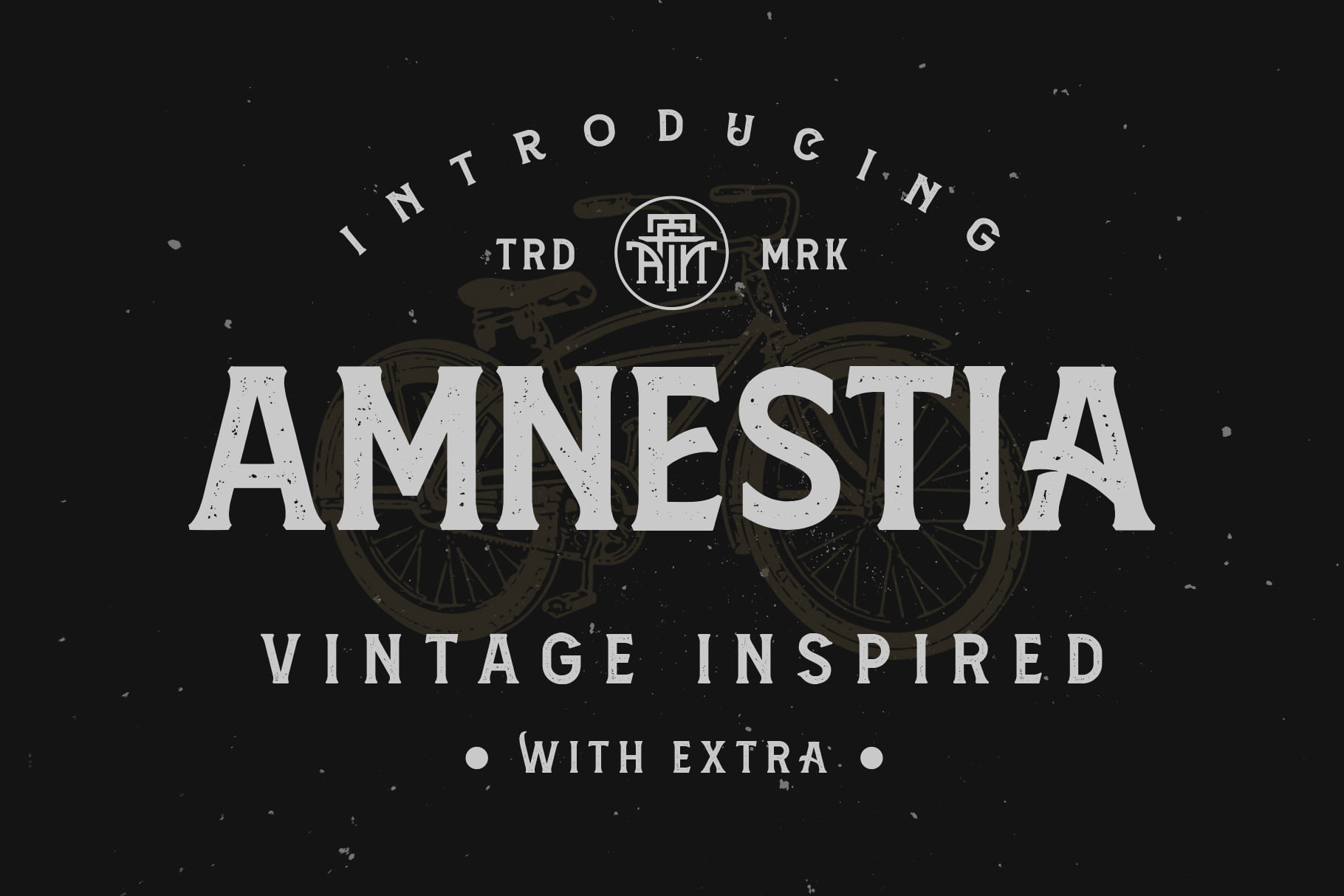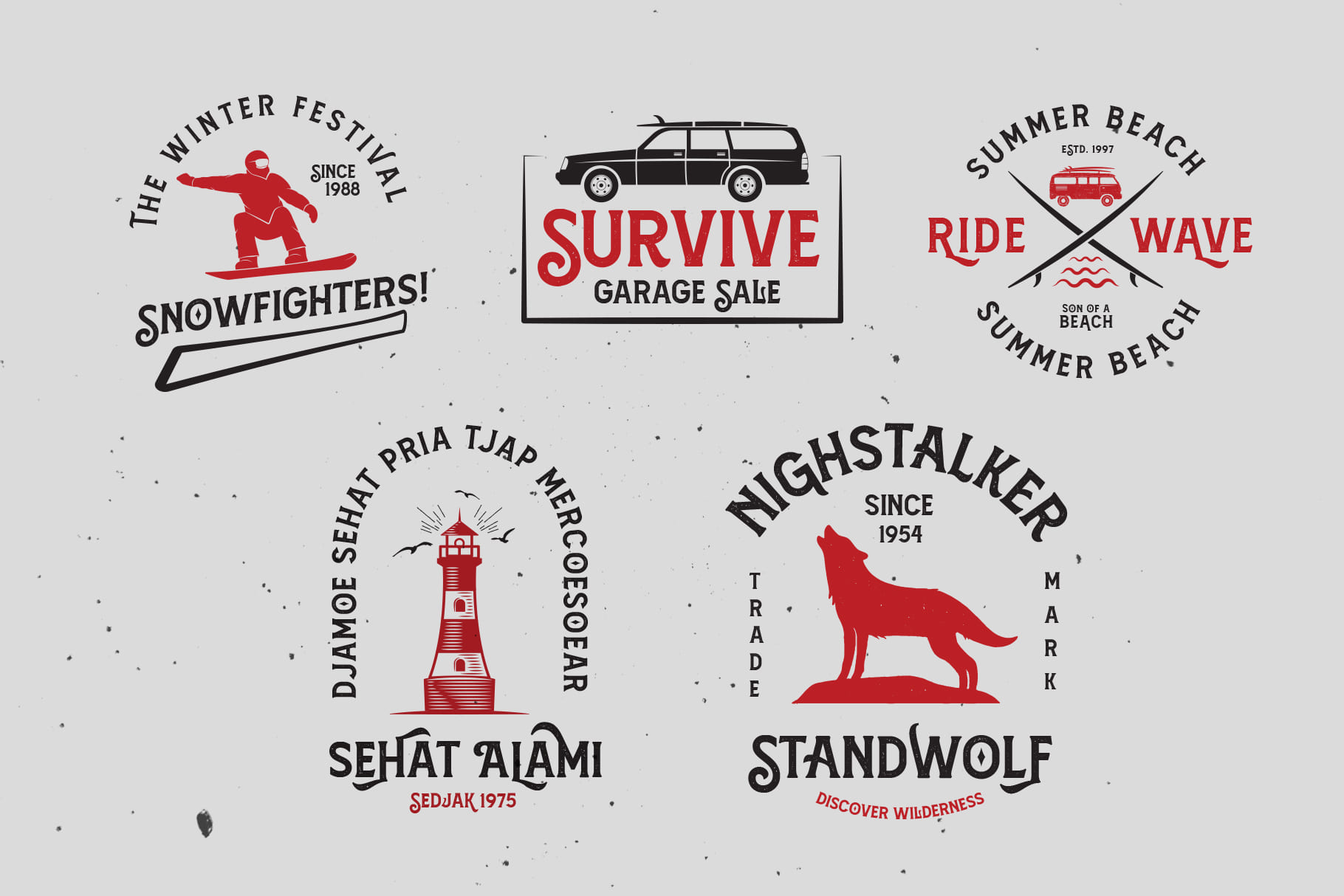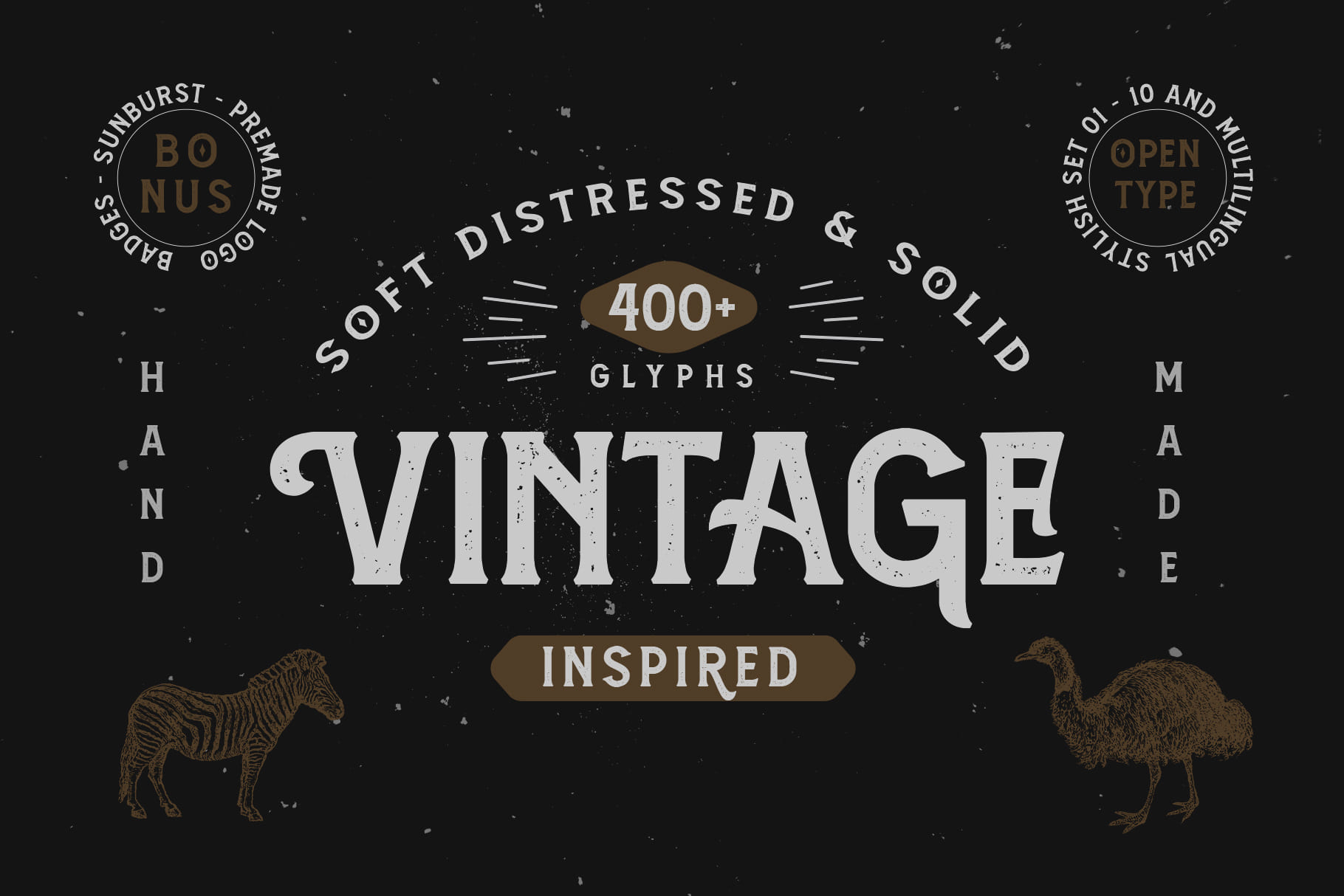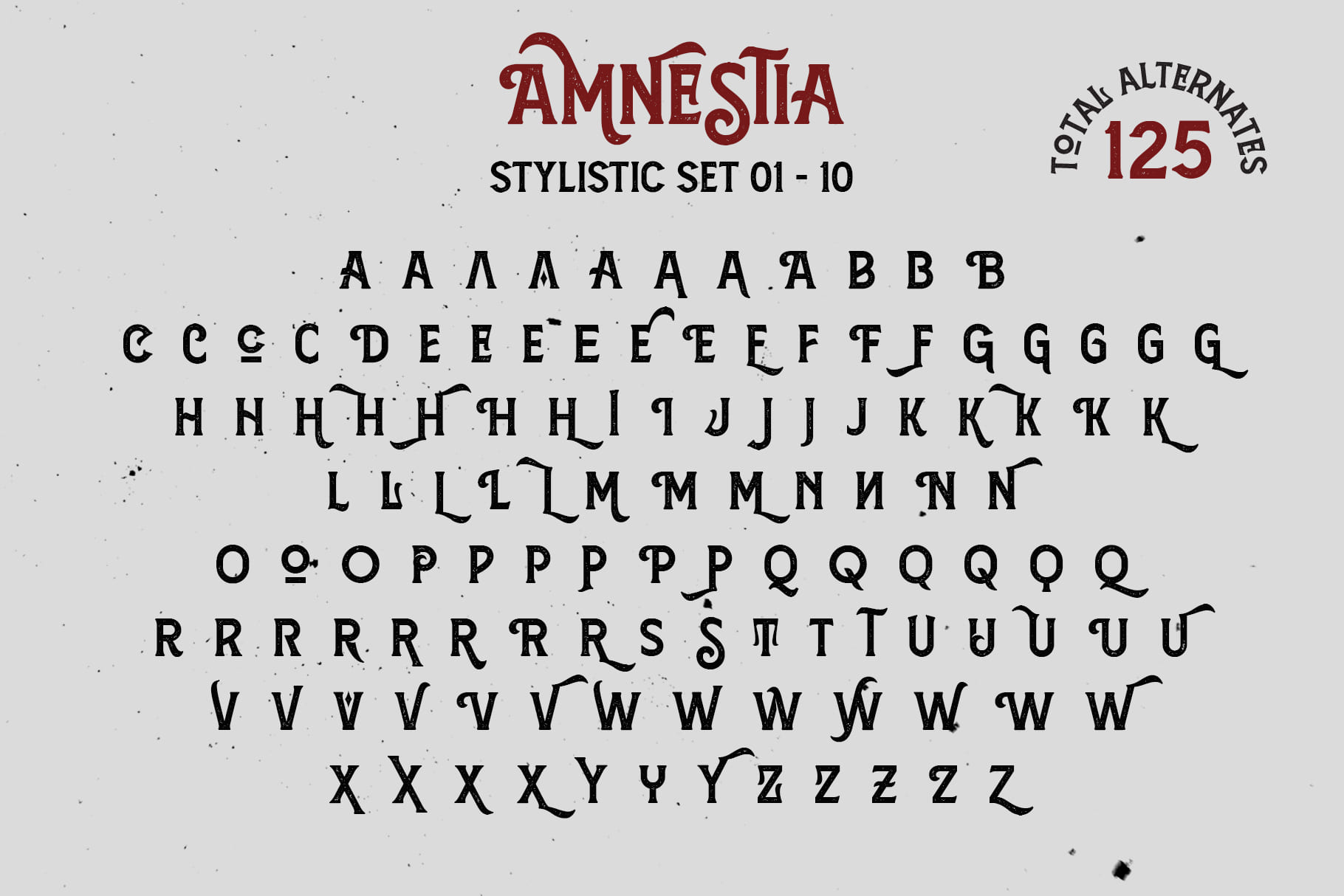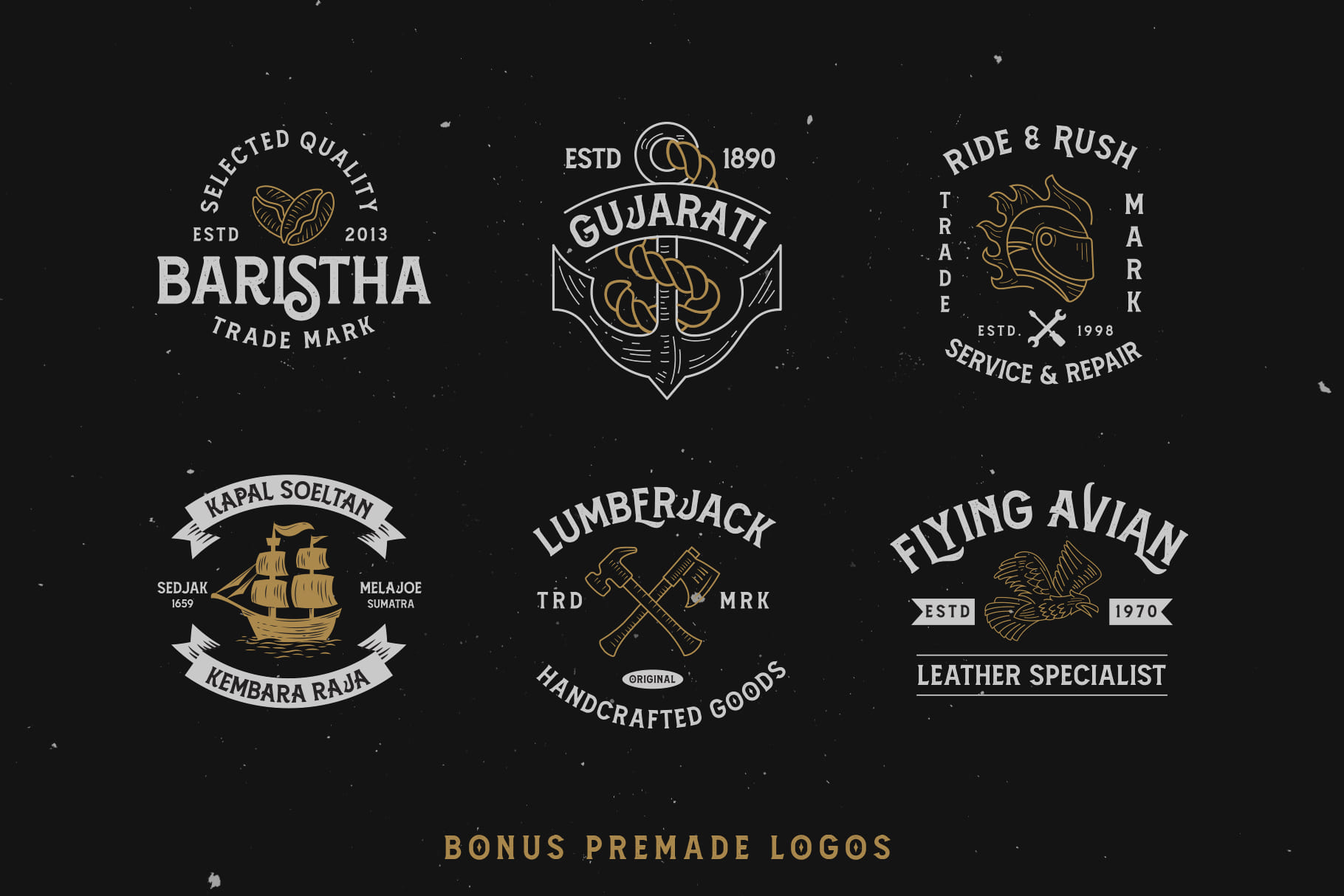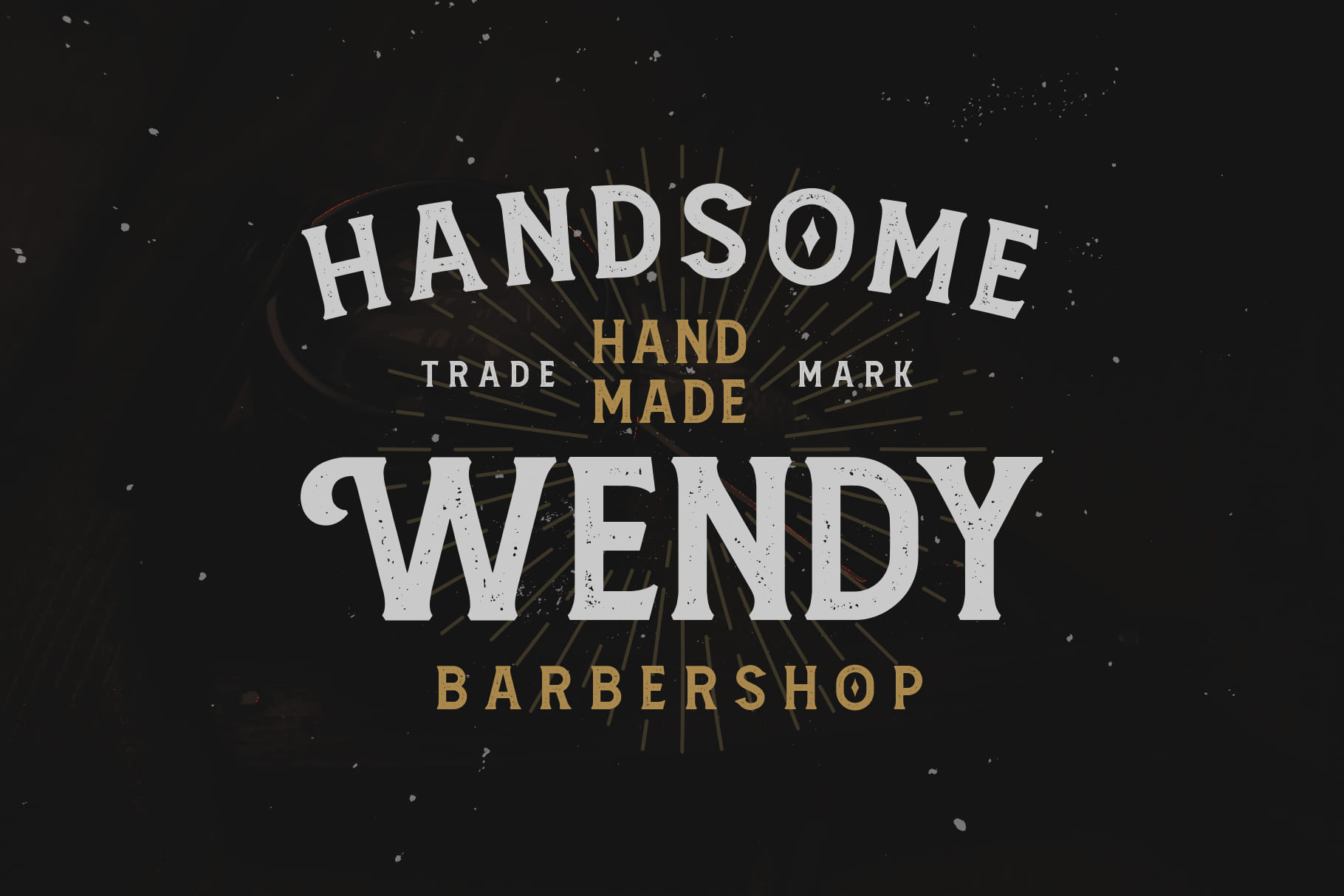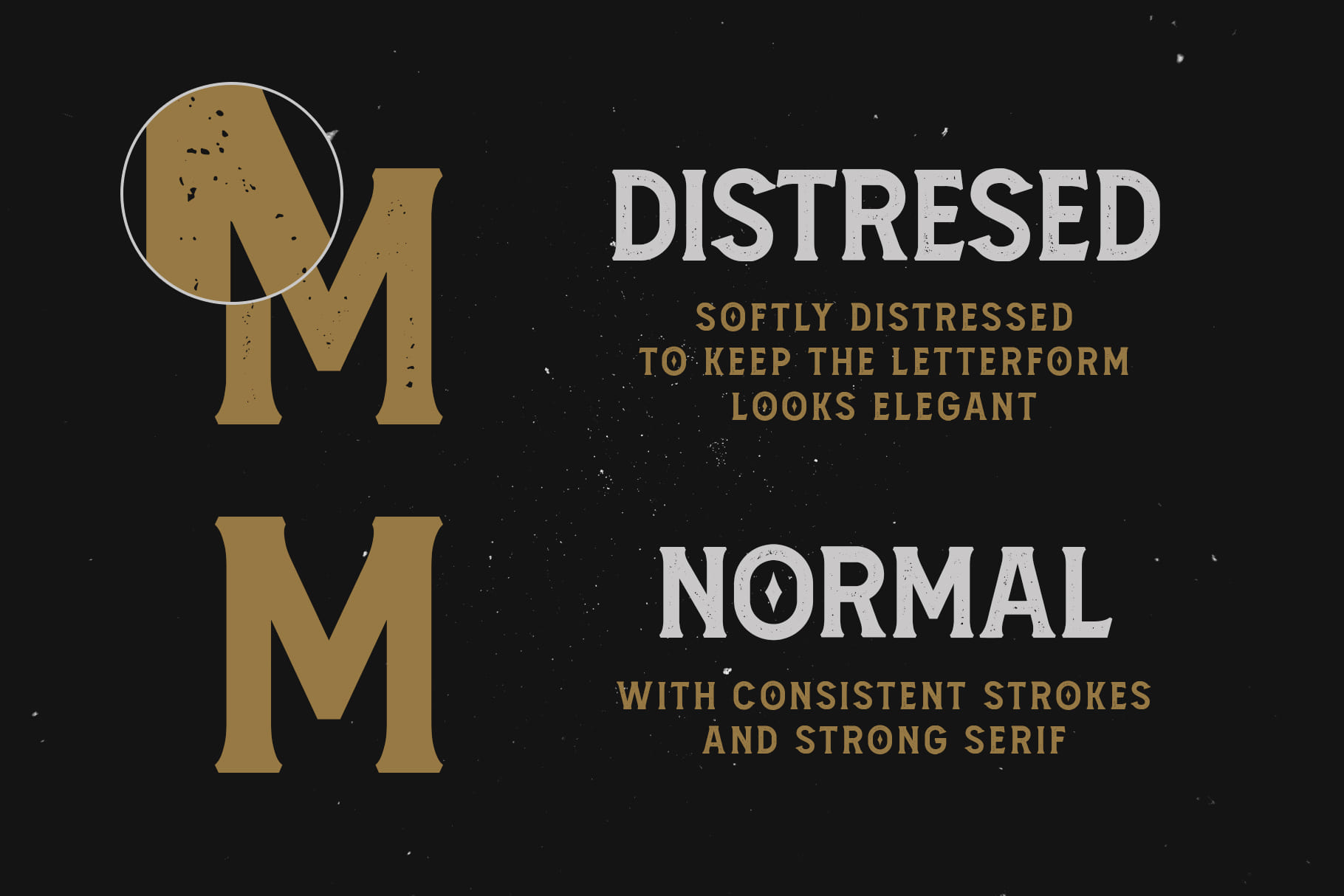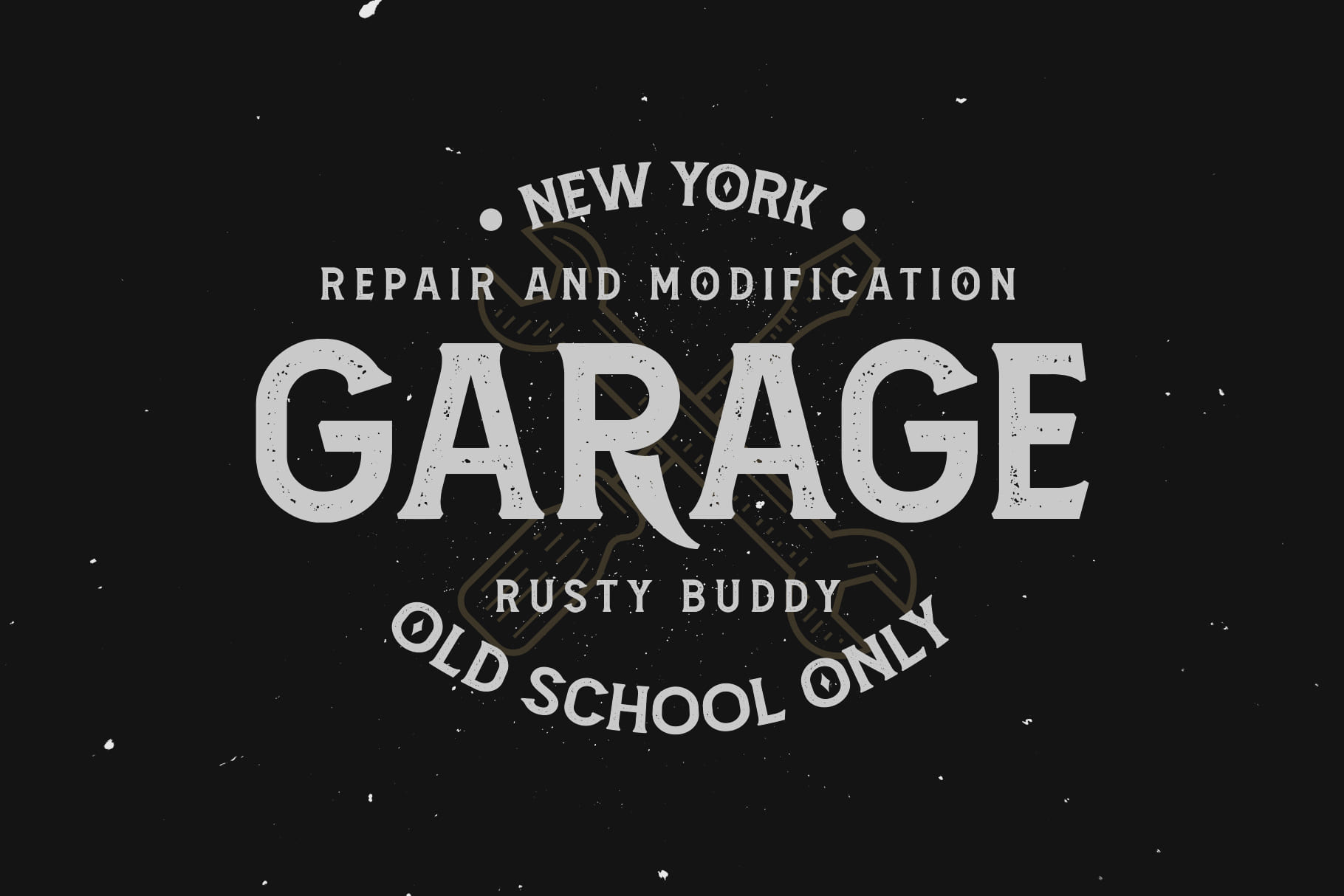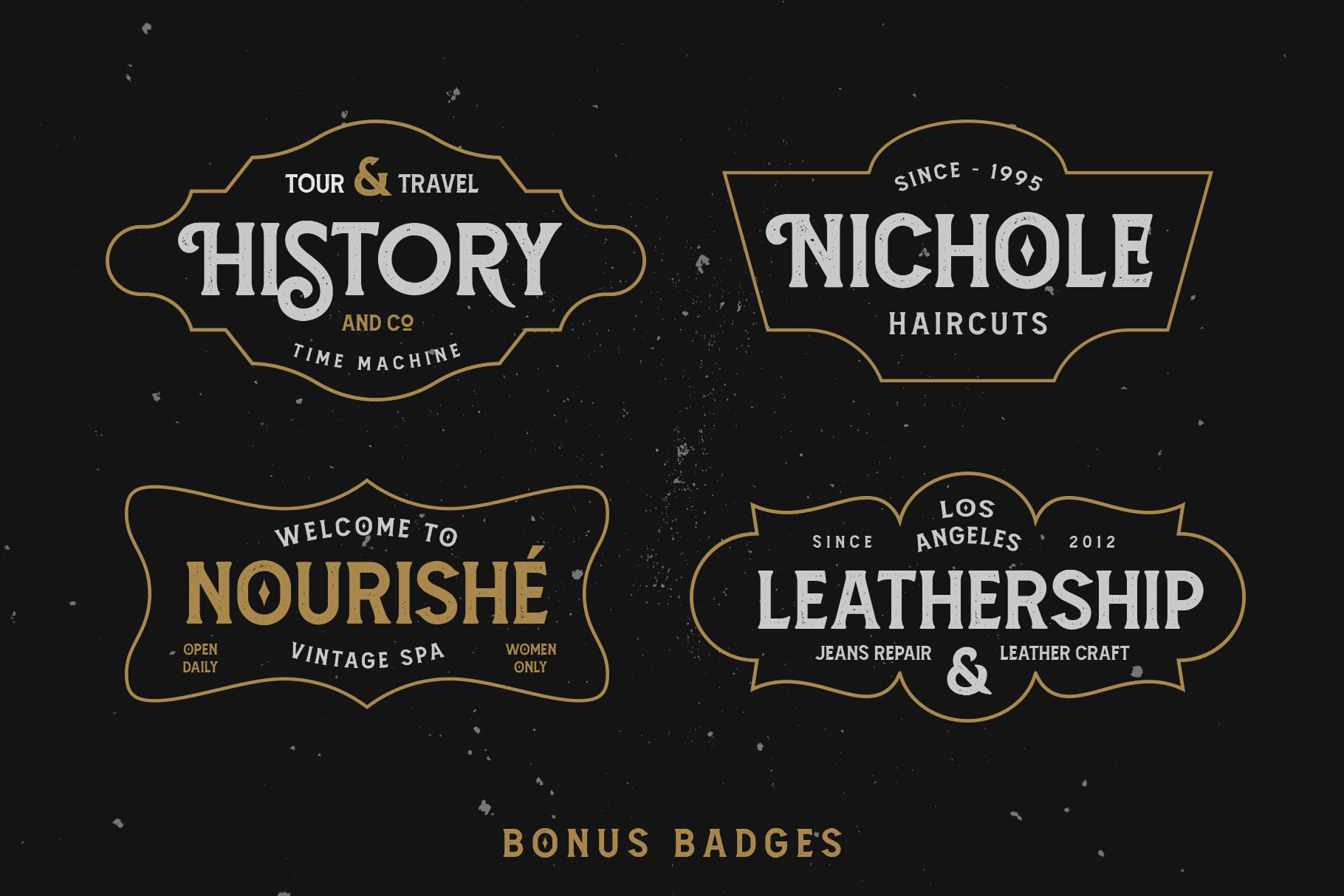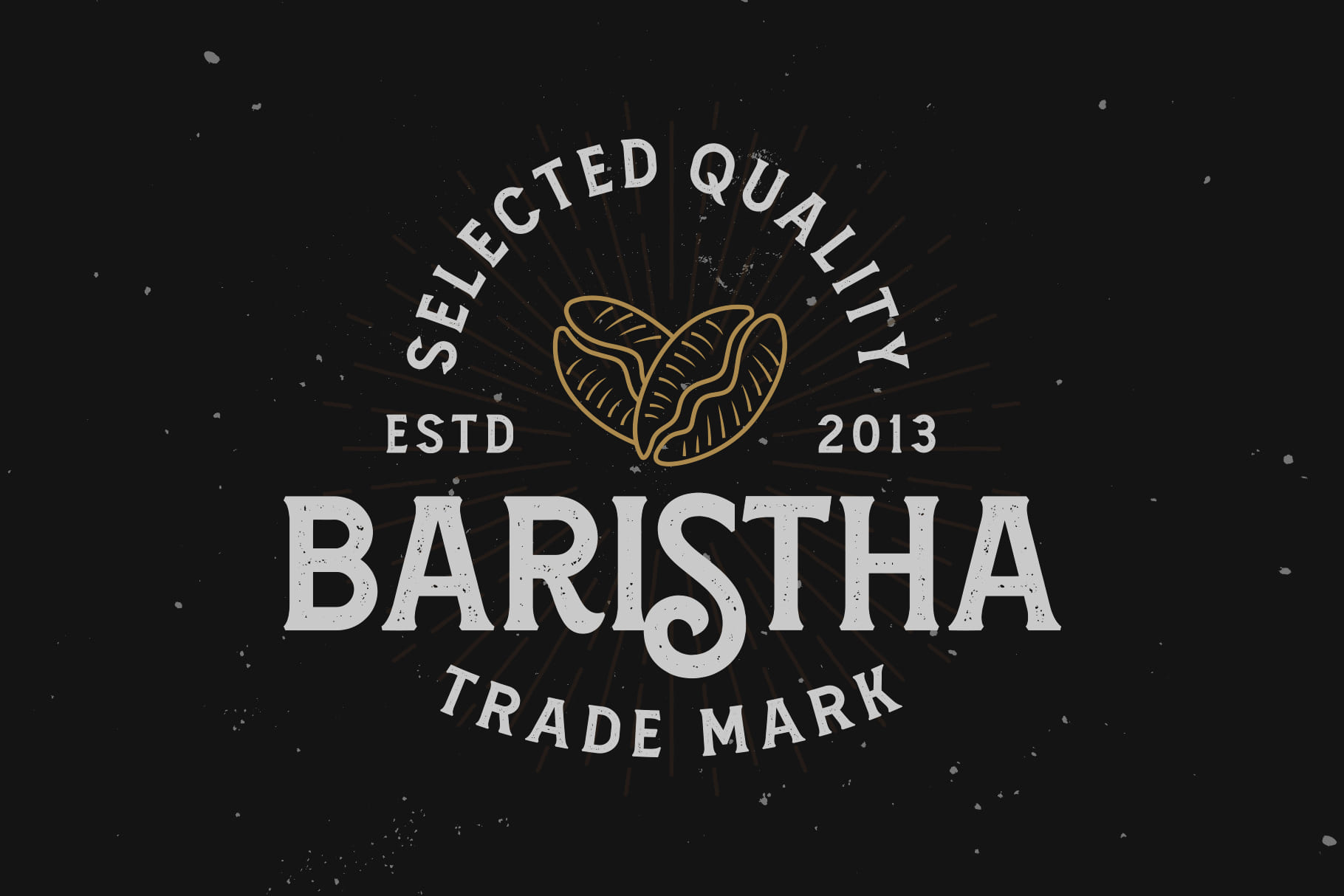
Amnestia Family (2 fonts)
Amnestia has a stylistic set 01 - 10 as the alternates of the letterforms. Some alternates have swashes and tails that you can explore to create more variation in your design.